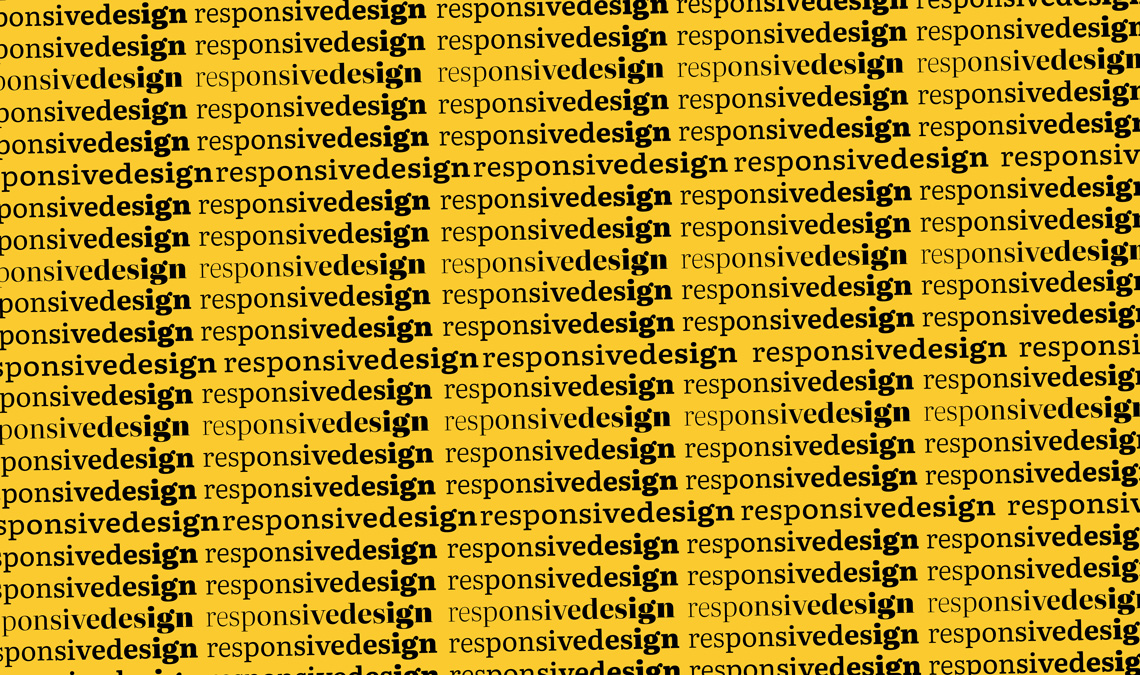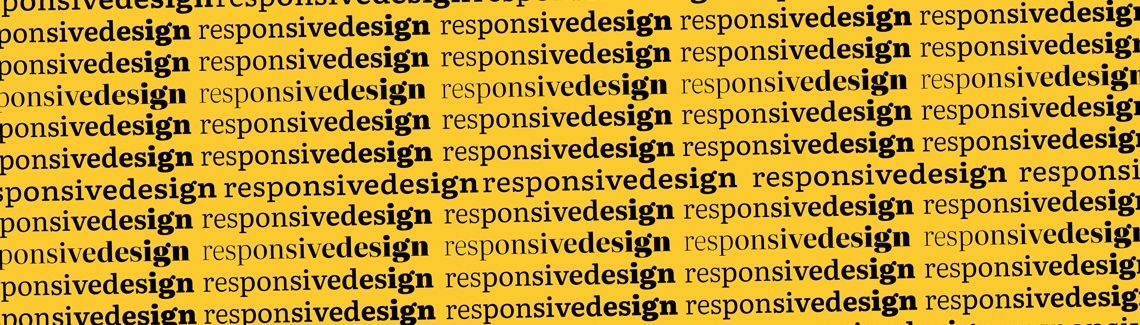
Get responsiveness with variable fonts
In other articles we have discussed what variable fonts are, how to buy them, and why they are such game-changers for digital design. But what can variable fonts do for responsive design?
Most Web browsers now support variable fonts, which opens possibilities for fine typesetting that were simply not there before (check Nick Sherman’s Variable Fonts site for updated information). We selected Literata and Portada, two typefaces with design variation tables that support the weight and the optical size axes, to create a proof of concept for how responsive design benefits from this new technology.
CSS had already allowed developers to fine-tune the line width, leading, and text size based on the user’s device and screen resolution. They could even change the font. But with variable fonts they can also introduce small variations that improve font performance based on the context. Now fonts can be just a bit bolder when switching to dark mode or they can adjust the optical size value to deliver designs that are specific for each pixel size.
The goal is simple: deliver the best legibility experience across devices. Watch the videos below or follow the links to test the demos for yourself.